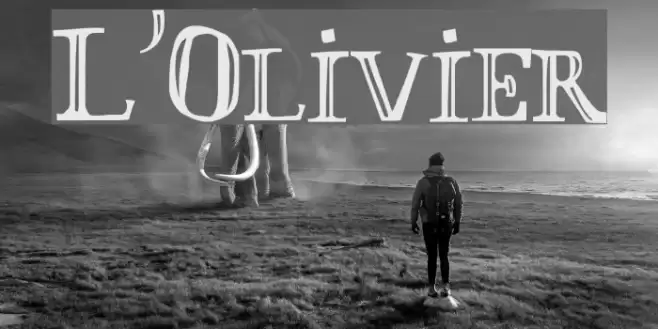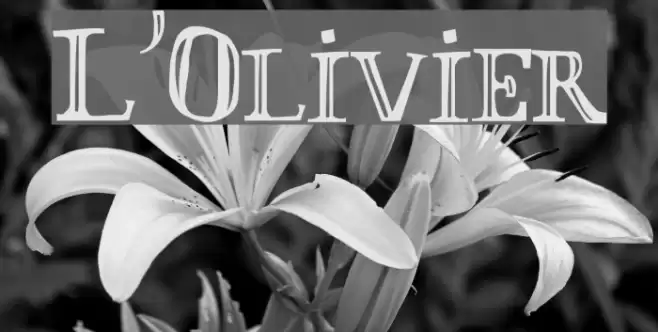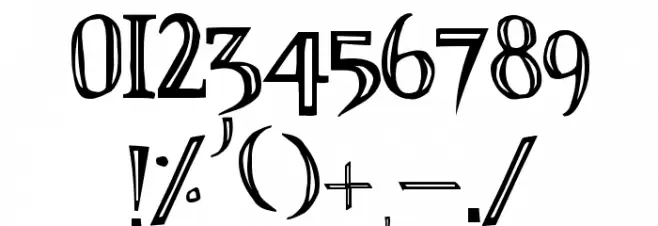
L'Olivier Font
L'Olivier Description
This font features a unique and artistic design with a blend of modern and vintage elements. The uppercase letters have a distinct flair, with sharp angles and curves that give them a dynamic appearance. The lowercase letters maintain a consistent style, complementing the uppercase with their own subtle variations. Numbers are bold and slightly condensed, adding to the font's overall striking look. Special characters are creatively designed, fitting seamlessly into the font's aesthetic. The font's style is both decorative and functional, making it suitable for a variety of creative projects.
A dynamic and artistic font with modern and vintage elements from Uncategorized fonts.
- Proposed Projects: Ideal for branding, posters, album covers, and creative design projects.
- Overall Style: Modern, Vintage